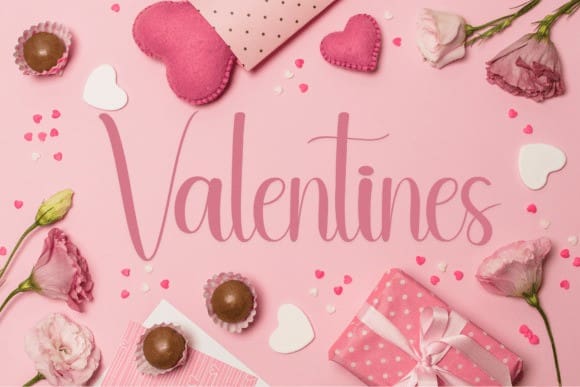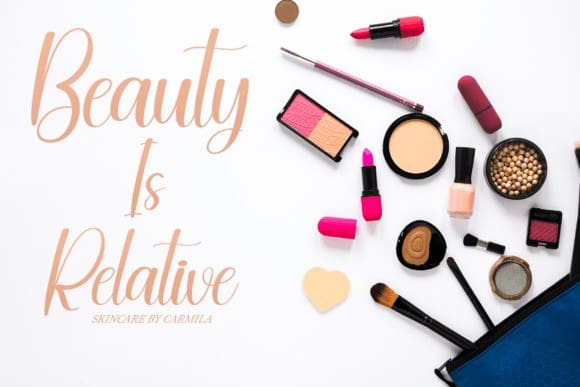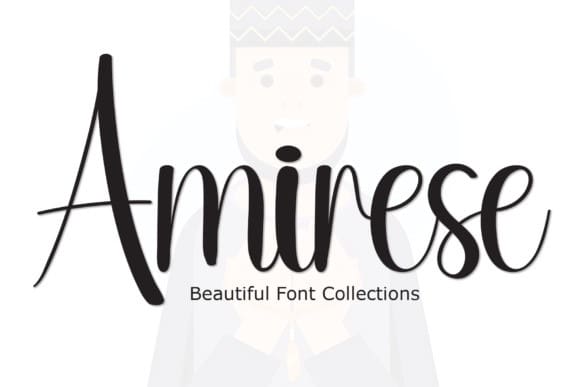
Amirese Script Font
Amirese Script Font is a sweet and friendly handwritten font. Fresh and neat, this font is ideal for writing wedding invitations, cards, or any other design that might need a fun touch!